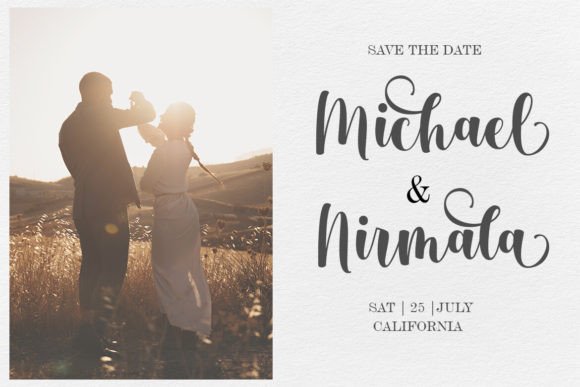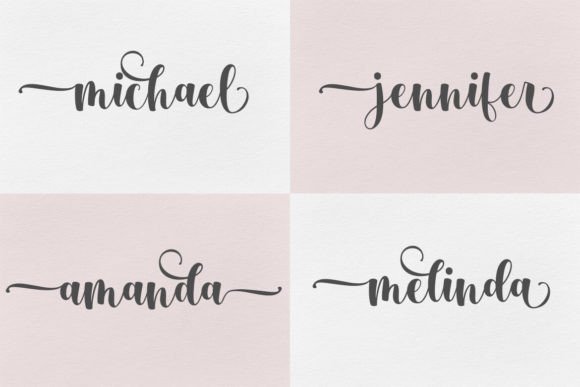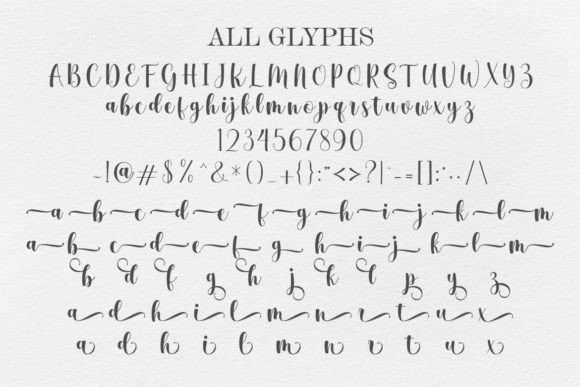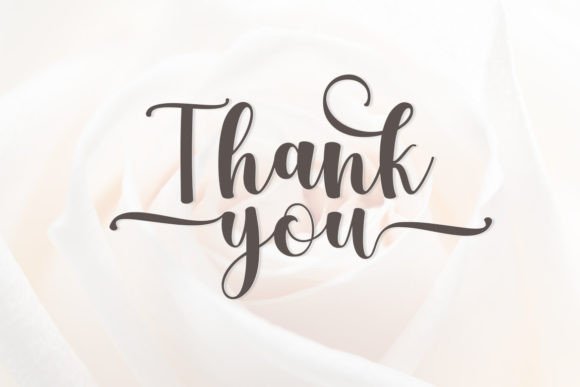
Crafting Font: Elevate Your Designs with Elegance and Sophistication
In the world of typography, few fonts capture the essence of elegance and sophistication as beautifully as Crafting Font. This delicate and elegant script font is designed to bring a touch of refinement to your designs, making it perfect for projects that demand a sense of luxury and poise. In this article, we’ll explore the features, benefits, and uses of Crafting Font, and how it can elevate your designs to new heights.
The Art of Crafting Font
Crafting Font is a masterfully crafted script font that boasts a modern and sophisticated appearance. Its thin letterforms feature fluid strokes and subtle curves, creating a graceful and refined feel that’s hard to resist. The font’s elegant design makes it an excellent choice for designs that require a sense of sophistication, such as wedding invitations, branding, or editorial design.
Key Features of Crafting Font
- Delicate and Elegant Design: Crafting Font’s slender letterforms and fluid strokes create a beautiful, refined look that’s perfect for designs that demand elegance.
- Modern and Sophisticated Appearance: The font’s contemporary design ensures it looks great in a variety of contexts, from digital to print.
- Fluid Strokes and Subtle Curves: The font’s carefully crafted strokes and curves add a touch of sophistication and refinement to your designs.
Uses of Crafting Font
Crafting Font is an incredibly versatile font that can be used in a variety of design projects, including:
- Wedding Invitations: Add a touch of elegance and sophistication to your wedding invitations, save-the-dates, and other wedding-related designs.
- Branding: Use Crafting Font to create luxurious and refined brand identities that exude sophistication and poise.
- Editorial Design: Elevate your editorial designs, such as magazine articles, blog posts, and books, with the font’s elegant and refined look.
- Stationery and Packaging: Add a touch of luxury to your stationery, packaging, and product designs with Crafting Font’s sophisticated appearance.
Tips for Using Crafting Font
To get the most out of Crafting Font, here are a few tips to keep in mind:
- Pair with Contrasting Fonts: Pair Crafting Font with bold, contrasting fonts to create visual interest and add depth to your designs.
- Experiment with Colors: Try pairing Crafting Font with a range of colors to find the perfect combination that complements your design.
- Pay Attention to Kerning: Make sure to adjust the kerning to ensure the font looks elegant and refined, even at smaller sizes.
| Font Name | Crafting Font |
| Author | Amarlettering |